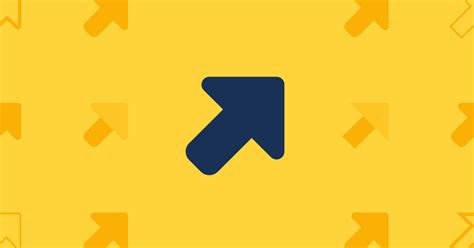
IZoom Meeting Icon: A Font Awesome Guide
Hey guys! Ever found yourself needing that perfect iZoom meeting icon for your website, presentation, or app, and thought, “Where do I even start?” Well, you’ve landed in the right place! Let’s dive into the world of Font Awesome and figure out how to snag that elusive iZoom meeting icon. Whether you’re a seasoned developer or just starting out, this guide will walk you through everything you need to know. We’ll cover why Font Awesome is a fantastic resource, how to find and use the iZoom icon, and even some creative ways to implement it in your projects. So, buckle up, and let’s get started!
Why Font Awesome is Awesome
Font Awesome is basically a huge library of scalable vector icons that you can customize – think of it as a treasure chest for web designers and developers. Instead of using images, which can be a pain to resize and manage, Font Awesome uses vector icons . This means they look crisp and clear at any size. Plus, they’re super easy to style with CSS. You can change their color, size, and even add shadows or animations! How cool is that? One of the biggest advantages of using Font Awesome is its sheer size. It has thousands of icons, covering just about every topic you can imagine. Need an icon for a user? Check. How about a shopping cart? Got it. And yes, even icons related to video conferencing and meeting platforms like iZoom. The icons are constantly updated, with new ones being added regularly, so you’re always sure to find something that fits your needs. Another great thing about Font Awesome is that it integrates seamlessly with web projects. You can easily add it to your HTML, CSS, and JavaScript code. They provide different ways to include the library, such as using a CDN (Content Delivery Network) or downloading the files and hosting them yourself. This flexibility makes it super convenient to use in any project, no matter the size or complexity. Customization is where Font Awesome really shines. Because the icons are essentially fonts, you can style them using CSS just like you would with text. Want to make the iZoom icon blue? Just change the color property in your CSS. Need to make it bigger? Adjust the font-size. You have full control over how the icons look and behave, which means you can perfectly match them to your brand’s aesthetic. Font Awesome also offers different styles of icons, such as solid, regular, light, and duotone. This variety allows you to choose the style that best fits your design. For example, if you want a simple, filled-in icon, you might go with the solid style. Or, if you prefer a more delicate look, the light style might be a better choice. The duotone style, with its two-tone coloring, can add a unique touch to your project. Lastly, Font Awesome is incredibly well-documented, making it easy to learn and use. Their website has comprehensive guides, tutorials, and examples that cover everything from basic usage to advanced customization techniques. If you ever get stuck, there are plenty of resources available to help you out. Plus, the Font Awesome community is active and supportive, so you can always ask for help on forums or social media.
Finding the iZoom Meeting Icon
Okay, so here’s the deal: Font Awesome doesn’t have an
official
iZoom meeting icon. Bummer, right? But don’t worry! There are still ways to get something similar that works great. We’ll explore some alternatives and workarounds to make sure you get the visual representation you need. First, let’s talk about why Font Awesome might not have a specific iZoom icon. Often, brand-specific icons are avoided due to trademark issues. Font Awesome wants to stay on the right side of the law and avoid any potential conflicts. This means that while you’ll find tons of generic icons for meetings, video calls, and communication, you won’t see a direct replica of the iZoom logo. That said, you can totally use generic icons that convey the same idea. Think about what an iZoom meeting represents visually. It’s usually a video camera, a screen, or a group of people talking. Font Awesome has plenty of icons that fit this description. You can search for terms like “video,” “camera,” “meeting,” “users,” or “communication” to find suitable alternatives. For example, the
<fas fa-video>
icon is a classic choice for representing video calls. It’s simple, recognizable, and gets the message across effectively. Similarly, the
<fas fa-users>
icon can symbolize a group meeting, perfect for indicating that multiple people are participating. If you want to get a bit more creative, you can combine multiple icons to create a more specific representation. For instance, you could use a screen icon (
<fas fa-desktop>
) along with a video camera icon to suggest a video conference on a computer. This approach allows you to tailor the icon to your exact needs, even without a dedicated iZoom icon. Another option is to use icon modifiers to enhance the meaning of the icons. Font Awesome allows you to rotate, flip, and stack icons, which can add extra visual cues. For example, you could rotate the video camera icon slightly to make it more dynamic or stack it on top of a screen icon to create a layered effect. These small tweaks can make a big difference in how the icon is perceived. If you’re feeling adventurous, you can even create your own custom icon using a vector graphics editor like Adobe Illustrator or Inkscape. This gives you complete control over the design and allows you to create an icon that perfectly matches the iZoom aesthetic. Once you’ve created your custom icon, you can add it to your Font Awesome library using their custom icon upload feature. This requires a bit more technical know-how, but it’s a great way to get exactly what you want. Don’t forget to consider the overall style of your project when choosing an icon. If your design is clean and minimalist, you’ll want to choose a simple, line-based icon. On the other hand, if your design is more bold and colorful, you might opt for a filled-in or duotone icon. Consistency is key, so make sure the icon you choose fits in with the rest of your visual elements.
css
and
webfonts
folders into your project directory. Finally, add a
<link>
tag to your HTML, pointing to the
all.css
file in the
css
folder. Once you’ve included Font Awesome in your project, you can start adding icons to your HTML. To add an icon, you’ll use the
<i>
tag with specific classes that tell Font Awesome which icon to display. For example, if you want to use the video camera icon, you would use the following code:
<i class="fas fa-video"></i>
. The
fas
class indicates that you’re using a solid style icon, and the
fa-video
class specifies the video camera icon. You can change the size of the icon using CSS. Font Awesome icons are essentially fonts, so you can use the
font-size
property to adjust their size. For example, to make the video camera icon twice as big, you would add the following CSS:
.fa-video { font-size: 2em; }
. You can also use other CSS properties to style the icon, such as
color
,
margin
, and
padding
. If you want to add the icon to a button, you can simply place the
<i>
tag inside the
<button>
tag. For example:
<button><i class="fas fa-video"></i> Start Meeting</button>
. This will display the video camera icon next to the text “Start Meeting” on the button. You can also use JavaScript to dynamically add or modify icons. For example, you could use JavaScript to change the icon when a user clicks on a button or when a certain event occurs. To do this, you would use JavaScript to select the
Wrapping Up
Alright, guys, that’s a wrap! We’ve journeyed through the world of Font Awesome, hunted for the perfect iZoom meeting icon (or a fantastic alternative), and explored some seriously cool ways to use it. I hope you’re feeling inspired and ready to sprinkle some icon magic on your next project. Remember, even though there isn’t an official iZoom icon in Font Awesome, there are plenty of creative workarounds to get the job done. Whether you choose a generic video camera icon, combine multiple icons, or create your own custom design, the possibilities are endless. The key is to think outside the box and have fun with it! Font Awesome is an incredible resource for web designers and developers, offering a vast library of scalable vector icons that can be customized to fit any project. From simple navigation menus to dynamic user interfaces, icons can add visual appeal, improve usability, and enhance the overall user experience. So, go forth and experiment! Try different icons, styles, and animations to find what works best for you. And don’t be afraid to ask for help if you get stuck. The Font Awesome community is always there to lend a hand. With a little creativity and a lot of enthusiasm, you can create stunning visuals that will make your website or app stand out from the crowd. Now, go make some awesome stuff!